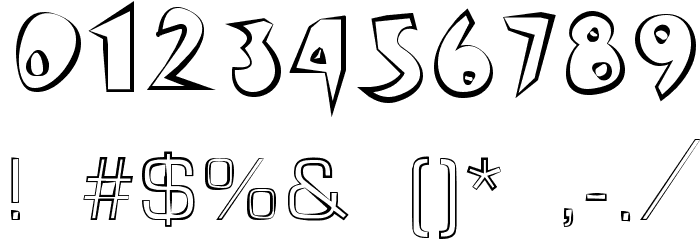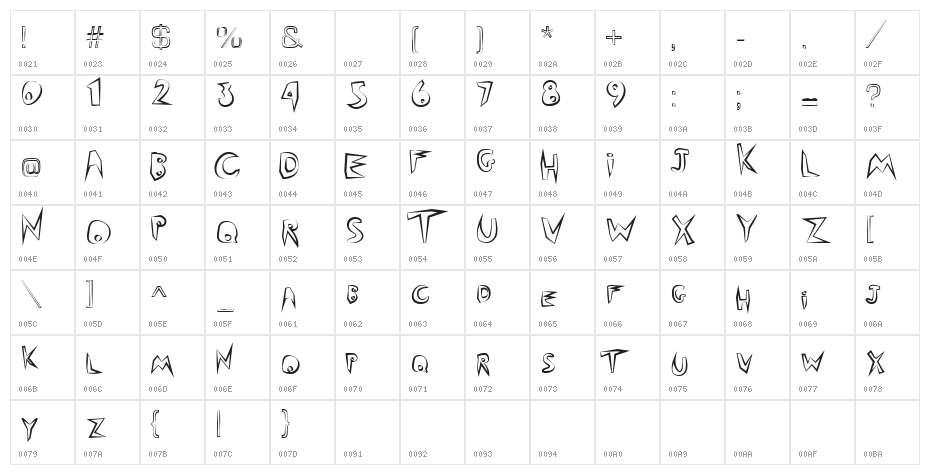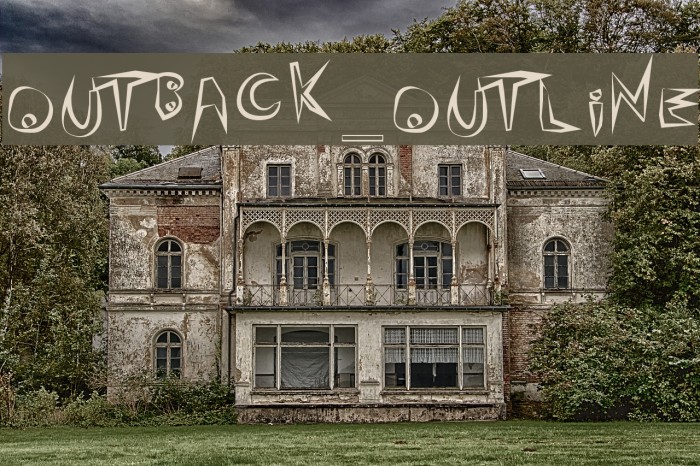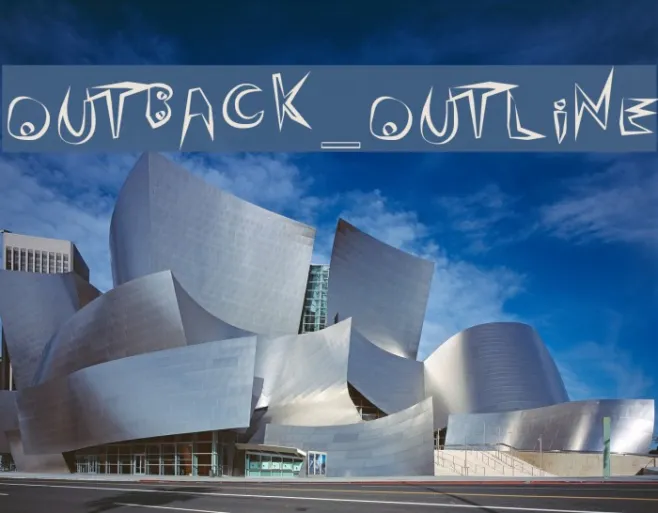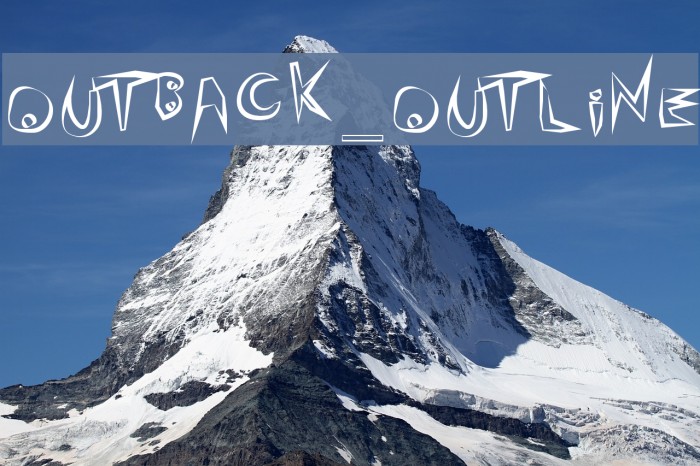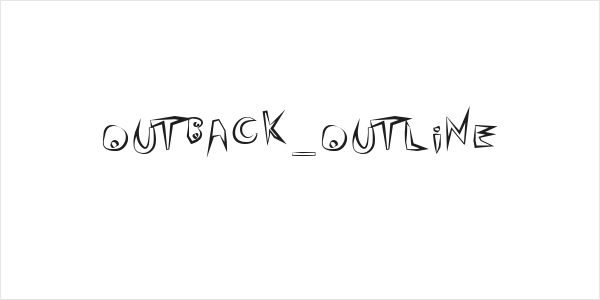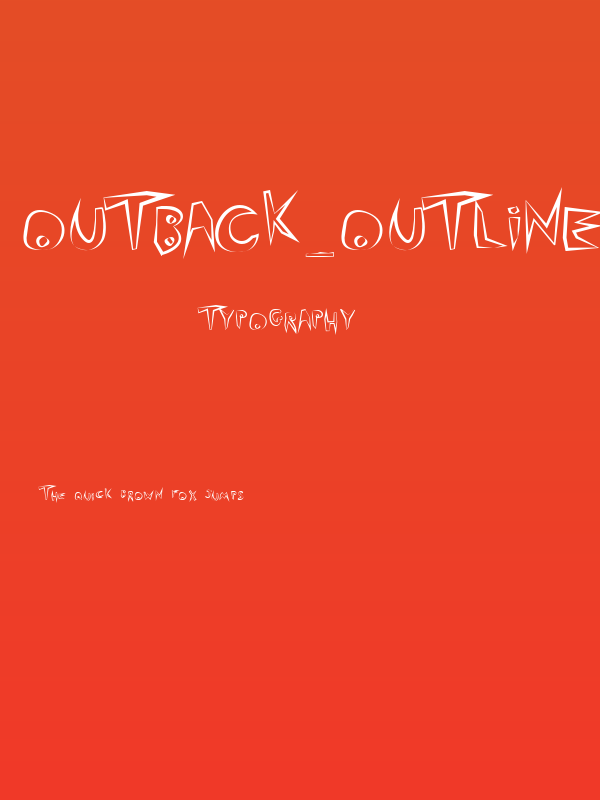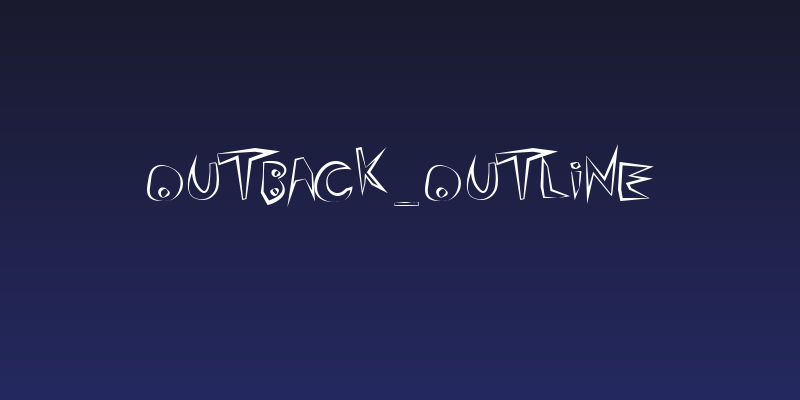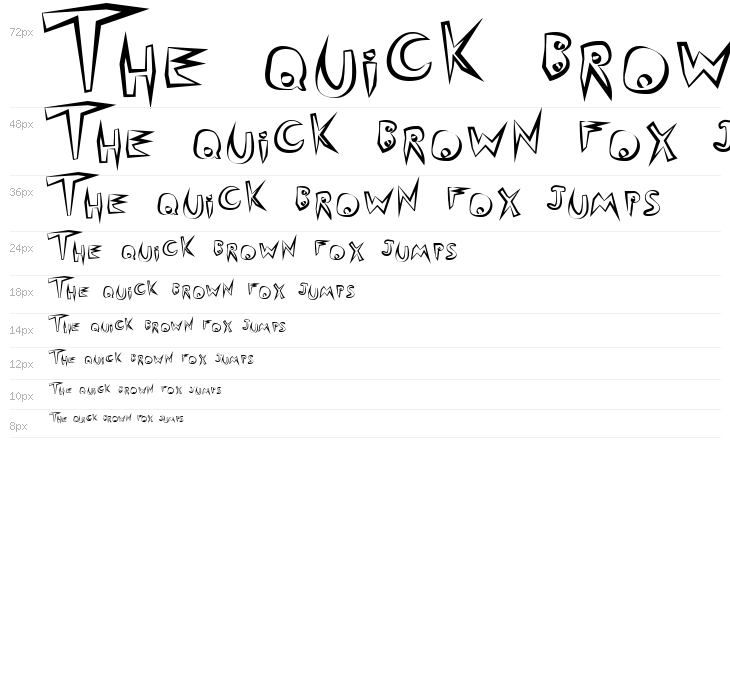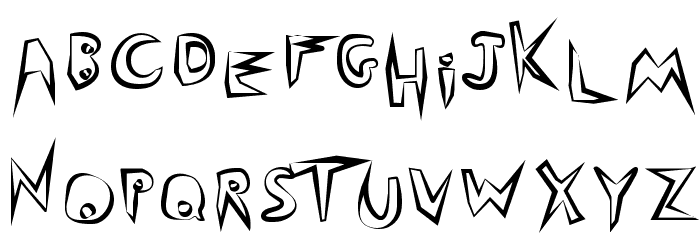
outback_outline Font
outback_outline Description
This font features a bold, dynamic design with sharp, angular edges and a playful, energetic style. The letters are outlined, giving them a striking appearance that stands out. Each character has a unique, jagged form, creating a sense of movement and excitement. The font is highly decorative, making it ideal for eye-catching designs. Its irregular shapes and bold outlines contribute to a modern, edgy aesthetic that is both fun and unconventional. The numbers and special characters maintain the same lively and bold characteristics, ensuring consistency across all elements.
Overall StyleModern, Decorative
Proposed ProjectsIdeal for posters, event flyers, video game titles, and any project requiring a bold, eye-catching design.